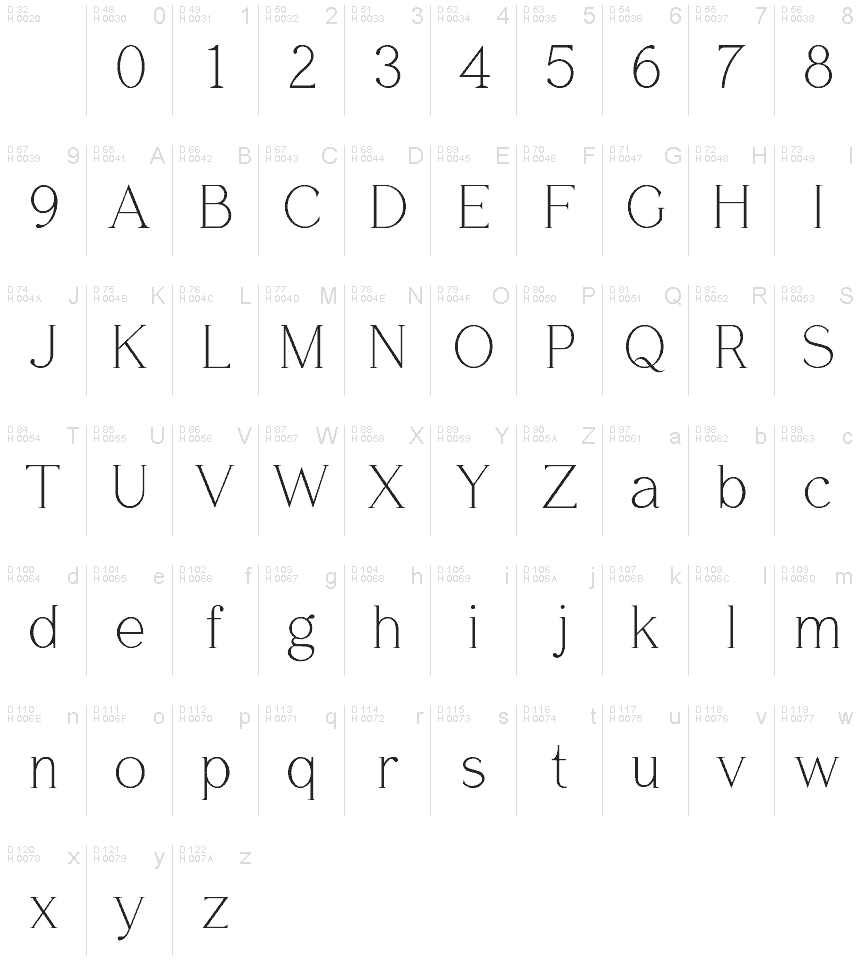
Kinta Regular
Incorporating typography into your modern designs, branding projects, advertising, social media posts, web layouts, print packaging, etc. can add elegance, impact and a professional finish. And a free font that does just that, with many different glyphs available, is Kinta. Kinta serif font created by Gholib Tammami is inspired by the elegance and sophistication of vintage fonts and is ideal for designs that need to evoke a feeling of old world charm. And with this dashing freebie, there is no limit to the projects it can be used for.
A sophisticated and minimalist font with clean lines, Kinta can be used in headlines of business cards, logos for coffee brands, packaging for chocolate and dessert products. It can even be used in greeting cards, vintage poster designs, quotes, and invitation cards. This versatile font can give your projects a simple yet strong presence.